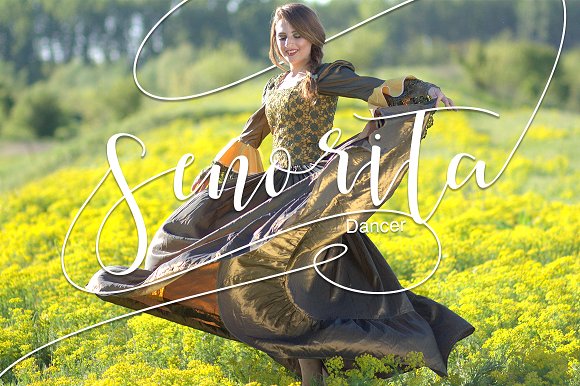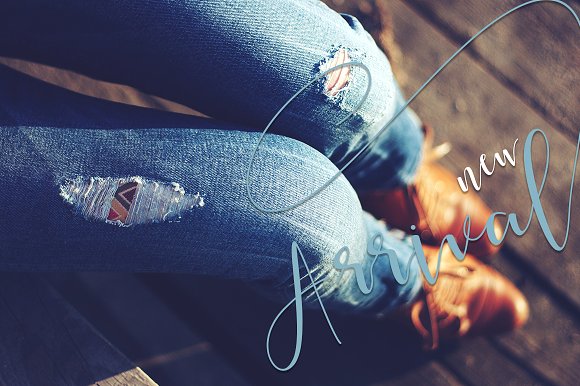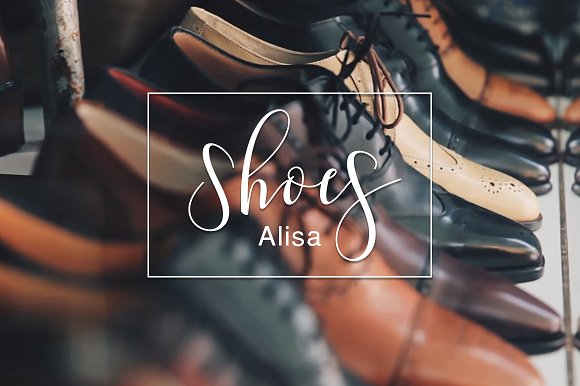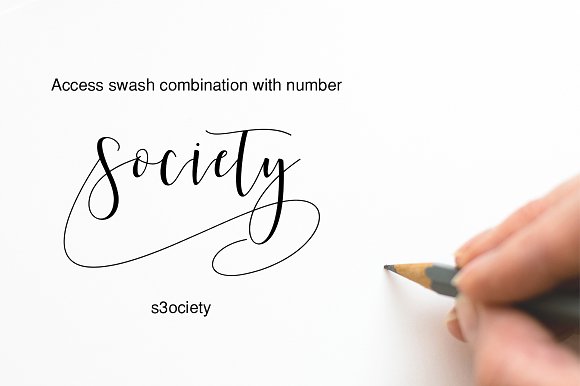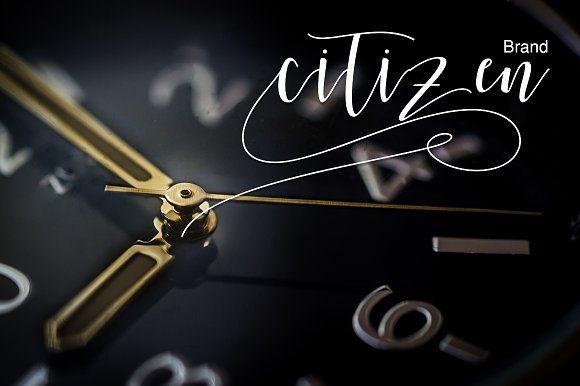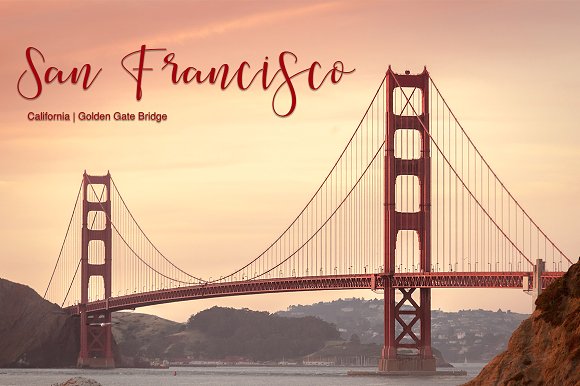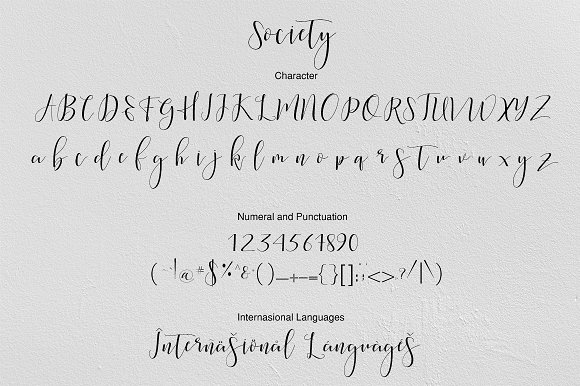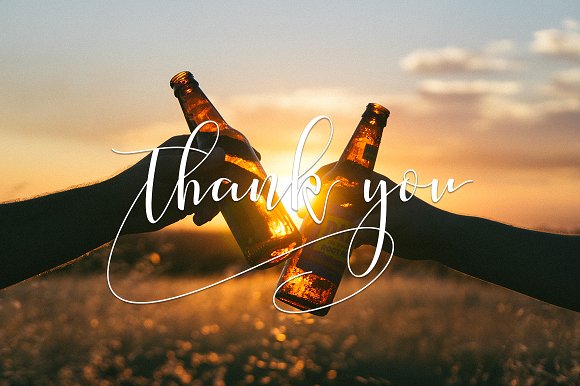
HomeScript FontsSociety Font Script Fonts Society Font FacebookXPinterestWhatsApp Society Font Poster 2 Society Font Poster 3 Society Font Poster 4 Society Font Poster 5 Society Font Poster 6 Society Font Poster 7 Society Font Poster 8 Society Font Poster 9 About Society Font Society Script is a hand brushed font that allows you to create jaw-dropping designs in an instant. DOWNLOAD ON CREATIVE FABRICAThis font is sold and delivered by Creative Fabrica. Font Canyon may earn a commission if you buy through this link. People also explored Proudly Story Telling Font Handley Font Mellya Font Paradisy Font Mock-Up Farmhouse Sign Star Lights Font (Script Fonts, Cursive Fonts, Handwriting Fonts) Agatha Handwritten Font Feharitas Font 347 0 TagsSociety Font Previous articleStaligrad FontNext articleSilicia Font LEAVE A REPLY Cancel reply Comment: Please enter your comment! Name:* Please enter your name here Email:* You have entered an incorrect email address! Please enter your email address here Website: Save my name, email, and website in this browser for the next time I comment. Personal Use Free Stone Garden Personal Use Free Read more about this font Nulshock Bold Personal Use Free Read more about this font BD RatterBit Personal Use Free Read more about this font ABC Personal Use Free Read more about this font BLOG 5 Fonts That Will Dominate Design Trends in 2026 5 Fonts for 2026 That Will Dominate Design Trends Typography plays a critical role in visual communication, and as we look ahead to 2026, it’s... Using Fonts in Digital Marketing: Tips to Strengthen Your Brand Identity Top 10 Handwritten Fonts That Elevate Your Designs The 10 Best Handwriting Fonts to Add Personality to Your Designs